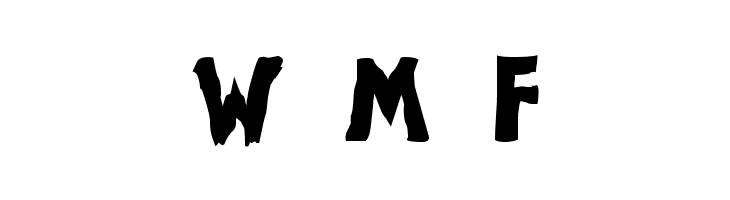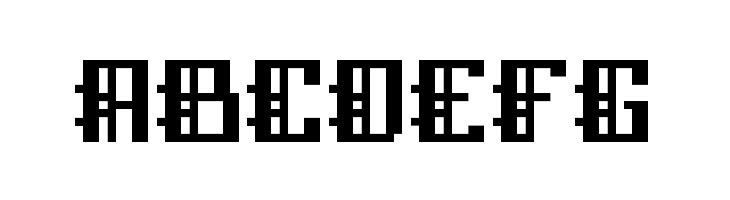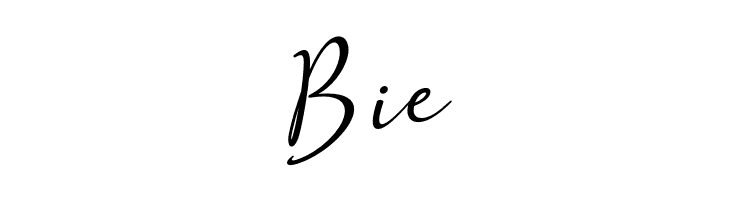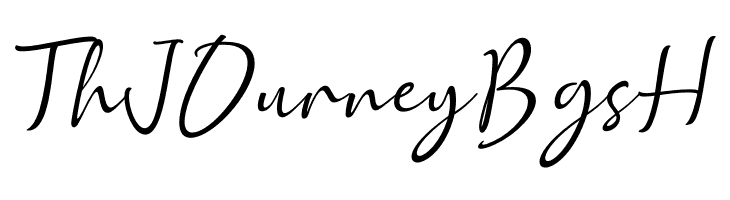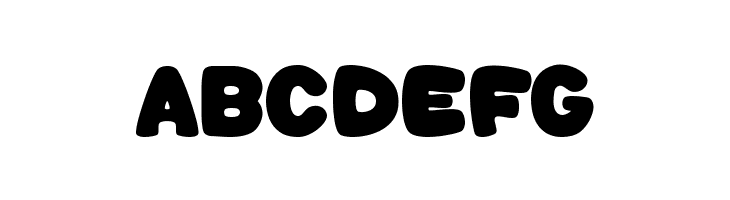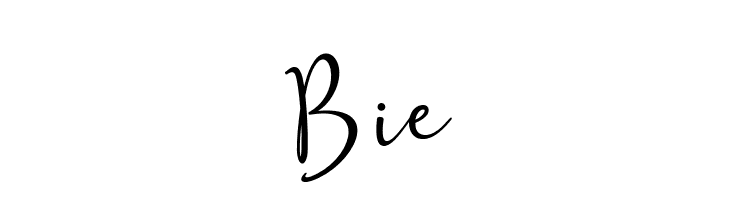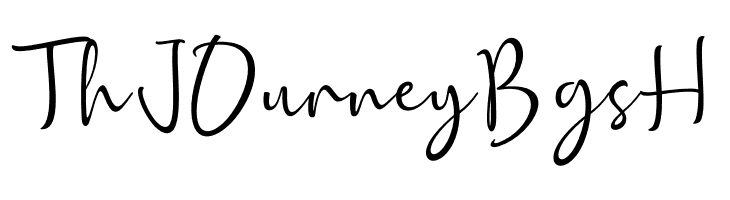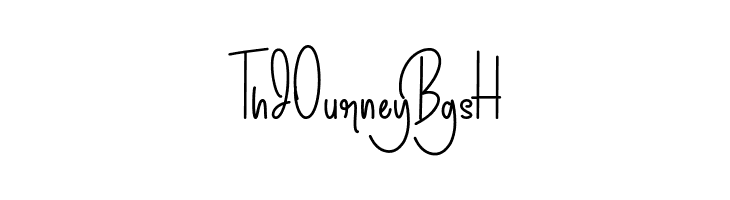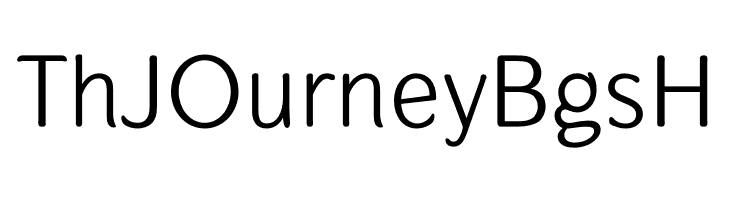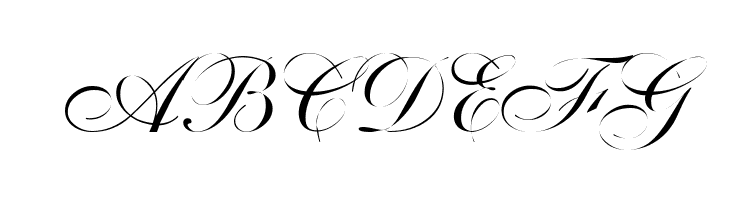
A pixelated, retro-style font inspired by classic video games.
Playful handwritten font with tall, narrow letters.
A modern sans-serif font with smooth curves and uniform strokes.
A casual, elegant handwritten font with fluid, organic strokes.
A flowing, elegant script font with a dynamic slant and smooth, connected strokes.
A modern font with classical Greek influences, featuring bold, rounded characters.
A bold, decorative font with heart motifs integrated into each character.
A heart-themed decorative font with glyphs made from clustered heart shapes.
A bold, decorative font with heart motifs, perfect for romantic and playful designs.